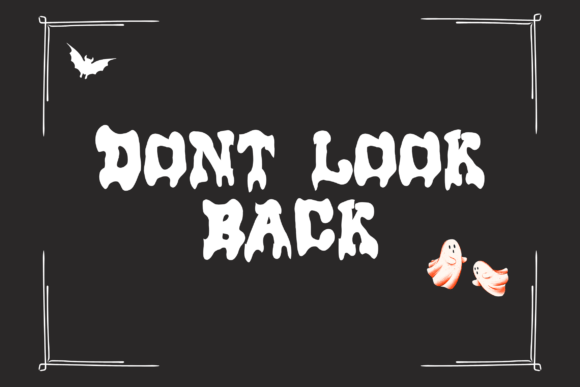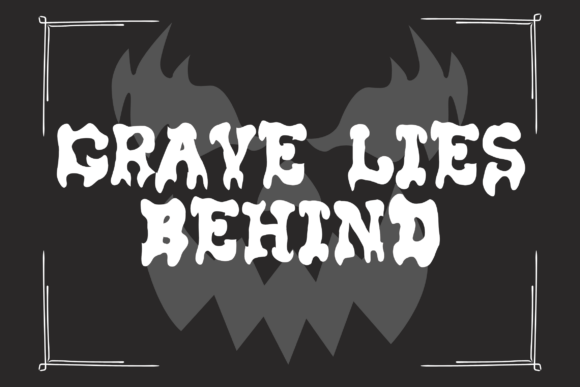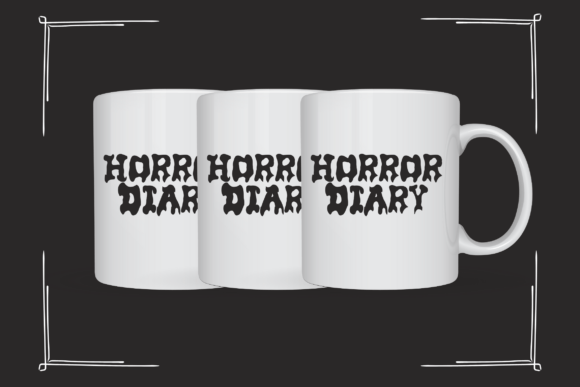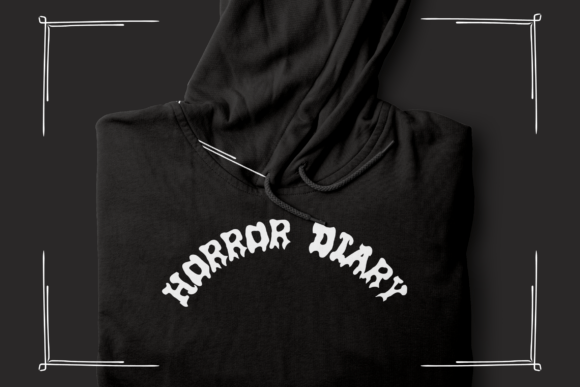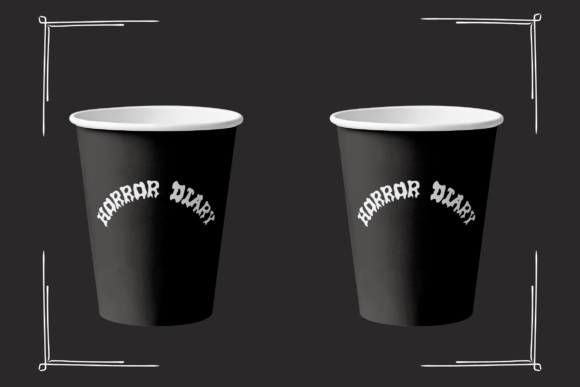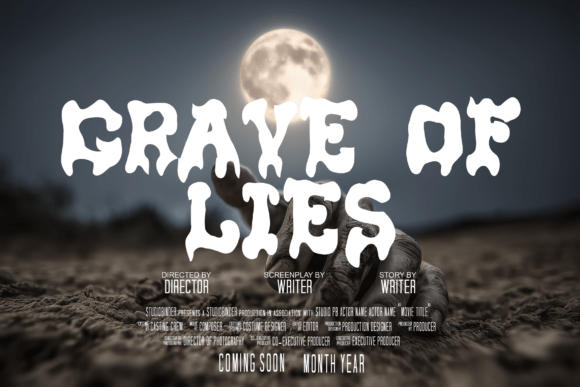
The Perfect Font for Edgy Designs
Have you ever been stuck on a design project, frantically scrolling through font options, only to feel like something is missing? You know, that elusive ‘wow’ factor that elevates your work from meh to mesmerizing? For designers seeking a bold, eye-catching font, look no further than Blocksmith Melted Font.
| 👤 Author | Sharon ( DmStudio ) |
This varsity font is not for the faint of heart. Its wild, liquid twist adds a rebellious edge to classic collegiate lettering, making it perfect for standout designs that exude attitude. From edgy sports graphics to Halloween posters and streetwear branding, Blocksmith Melted delivers impact with its melting style.
Blocksmith Melted Font Key Features
- Unique Characteristic: Distressed and melted effect, giving a worn and vintage look
- Font Style: Display font with a bold, distressed texture
Blocksmith Melted Font Review
Overall, I’m impressed with Blocksmith Melted Font, but as with any design element, there are pros and cons. Here’s my honest take:
- Unique aesthetic: Blocksmith Melted Font has a distinctive look that sets it apart from more traditional fonts.
- Highly legible: Despite its unconventional design, the font remains easy to read, even at smaller sizes.
- Great for creative projects: If you’re working on a project that requires a bold, eye-catching font, Blocksmith Melted Font is a great choice.
- Not suitable for formal documents: Blocksmith Melted Font is better suited for creative projects rather than formal reports or business documents.
- May not work well with complex text: Due to its unique design, the font may struggle with complex or dense text, leading to readability issues.
Blocksmith Melted Font is a great addition to any designer’s toolkit, offering a unique and eye-catching alternative to more traditional fonts. While it may not be suitable for every project, it’s a great choice for creative projects that require a bold and attention-grabbing font.
Tips for Getting the Most Out of Blocksmith Melted Font
Blocksmith Melted Font is a bold and striking font that works well for titles, headings, and other emphasis elements. To get the most out of it, try:
- Using it sparingly to add impact to key messages.
- Pairing it with a clean and simple font for body text.
- Experimenting with different font sizes and styles to create visual interest.
Blocksmith Melted Font is well-suited for:
- Headlines and titles.
- Emphasis elements, such as buttons and calls-to-action.
- Branding and logo design. Alternatives to Blocksmith Melted Font
- Use a neon green or blue gradient as the background to give the title an otherworldly glow.
- Overlay the title with a distressed texture to give it a worn, retro feel.
- Experiment with different font sizes and styles to create a sense of depth and dimensionality.
- Use a metallic gray or silver color scheme to give the logo a industrial, high-tech feel.
- Overlay the title with a stylized metal texture to give it a 3D appearance.
- Experiment with different font sizes and styles to create a sense of movement and energy.